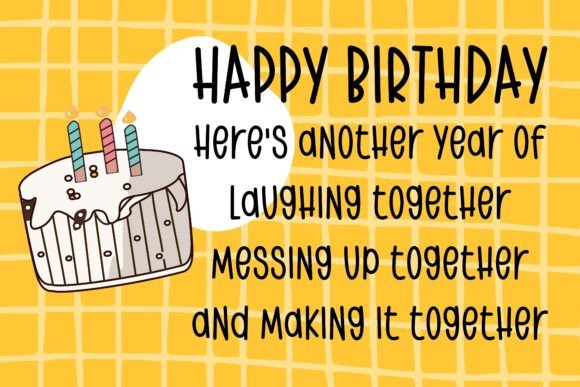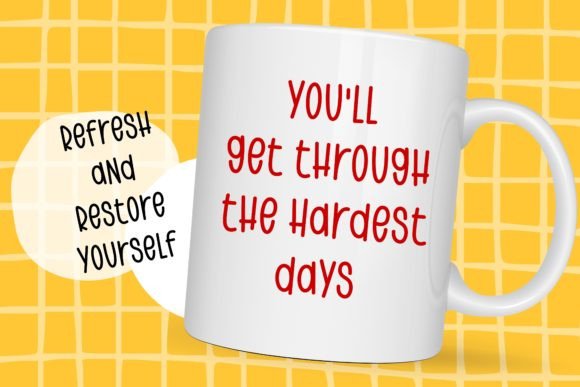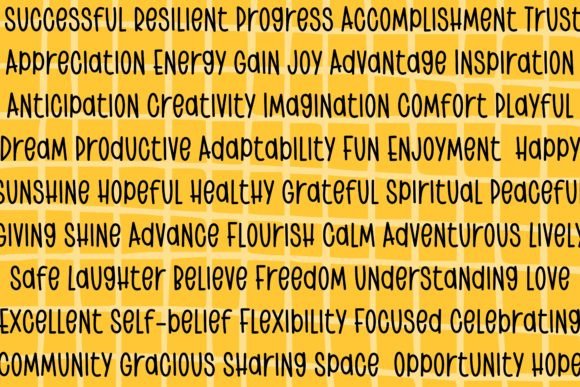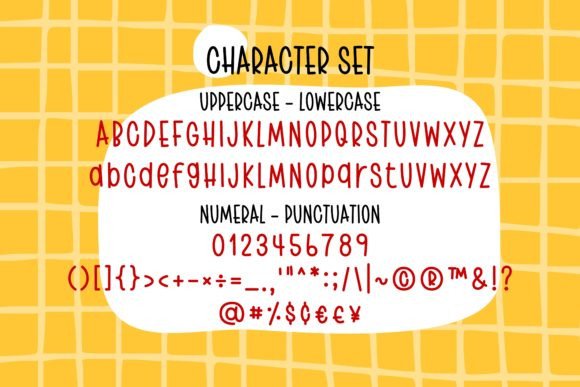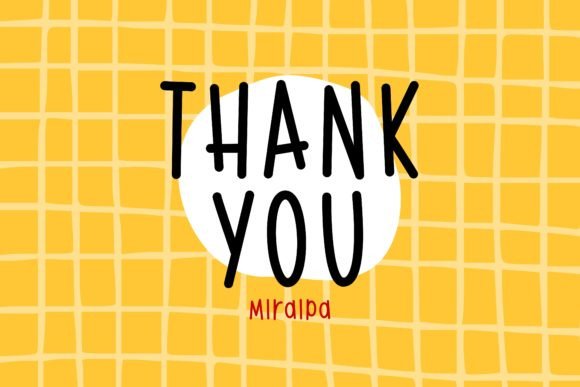
Introduction to Lemonade Iced Tea Font
Have you ever been sipping lemonade on a sunny afternoon, feeling inspired to create something special? That’s exactly what happened to me when I stumbled upon the Lemonade Iced Tea Font. Its playful, handwritten sans serif style instantly sparked an idea for a fun project, and I knew I had to share it with fellow designers and crafty enthusiasts.
This charming font is a hidden gem that’s perfect for adding a personal touch to your creative projects. Whether you’re planning a wedding, designing party decorations, or creating a diary planner, the Lemonade Iced Tea Font is an ideal design resource that will elevate your work to the next level. Its high-quality design and transparent background make it a versatile tool that’s easy to use and customize.
Key Features of Lemonade Iced Tea Font
- High-quality design resource ideal for creative projects, perfect for adding a touch of summer vibes to your design.
- Features a transparent background, allowing for seamless integration into various design elements and backgrounds.
- Unique characteristics include a playful, handwritten style with a touch of elegance, making it perfect for branding, advertising, and other creative applications.
Honest Review: Lemonade Iced Tea Font
I recently stumbled upon the Lemonade Iced Tea Font, and I must say it’s a great addition to any design project. As a designer, I appreciate high-quality fonts that can elevate the visual appeal of my work.
The font itself has a refreshing and modern feel to it, perfect for any creative project that requires a touch of citrusy flair. I particularly enjoy using it for branding and marketing materials, as it adds a sense of vibrancy and energy.
- ✨ High-quality design with clear lines and modern aesthetic
- ✨ Transparent background, making it easy to use with any background image or color
- ⚠️ Limited font styles, which might make it less versatile for certain design projects
- ⚠️ Not ideal for use in small text sizes, as it can become difficult to read
Overall, I’m impressed with the Lemonade Iced Tea Font. While it may have its limitations, it’s a great resource for designers looking for a high-quality, modern font that adds a touch of personality to their work.
The Lemonade Iced Tea Font is versatile and suitable for various design projects, including logos, business cards, menus, and signage. Its transparent background makes it easy to layer over images and graphics.